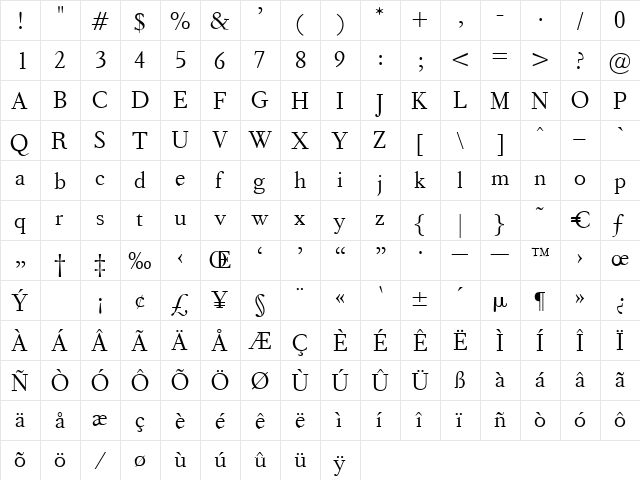
PeerGynt Regular
Design Context for PeerGynt Typeface
PeerGynt offers clean, dependable letterforms without strong stylistic allegiance, making it a practical choice for designers who need flexibility.
Pro Tip: Pair PeerGynt with a font of contrasting weight or personality to build a more expressive typographic hierarchy.